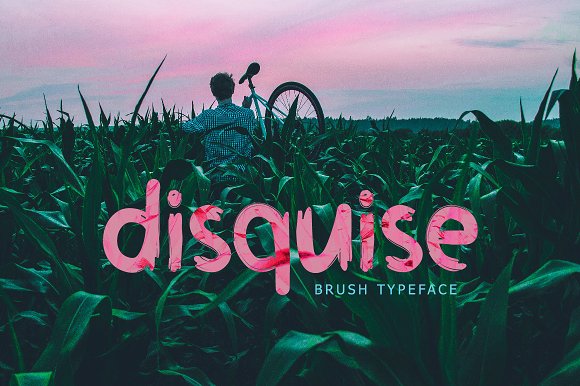
Step into the realm of captivating typography with Disguise Font, a handwritten brush font that exudes personality and charm. Crafted by the skilled hands of ChekArt, this display font is a visual masterpiece that will elevate your designs to new heights of distinction.
With its enchanting strokes and playful curves, Disguise Font dances across your screen, capturing hearts and imaginations alike. Its bold and energetic presence makes it the perfect choice for headlines that demand attention, packaging that exudes sophistication, and banners that announce your message with flair.
Unleash your creativity and let Disguise Font transform your designs into works of art. Its versatility knows no bounds, making it an ideal companion for a multitude of projects. From branding and logos to posters and social media graphics, Disguise Font effortlessly adds a touch of elegance and uniqueness to every creation.
Embrace the charisma of Disguise Font and watch as your designs take center stage. Its magnetic pull will captivate your audience, leaving them mesmerized by the sheer beauty of your words. Experience the power of typography and let Disguise Font ignite your passion for design.
**Reasons to Embrace Disguise Font:**
* **Unleash Your Creativity:** Disguise Font grants you the freedom to express your unique style, turning your designs into captivating works of art.
* **Captivate Your Audience:** Its enchanting strokes and bold presence command attention, ensuring your message is heard loud and clear.
* **Elevate Your Designs:** Disguise Font adds a touch of sophistication and elegance, elevating your designs to new heights of professionalism.
* **Versatile and Limitless:** Unleash your creativity across a wide range of projects, from branding and logos to posters and social media graphics.
* **Ignite Your Passion:** Disguise Font rekindles your love for design, inspiring you to create masterpieces that resonate with your audience.